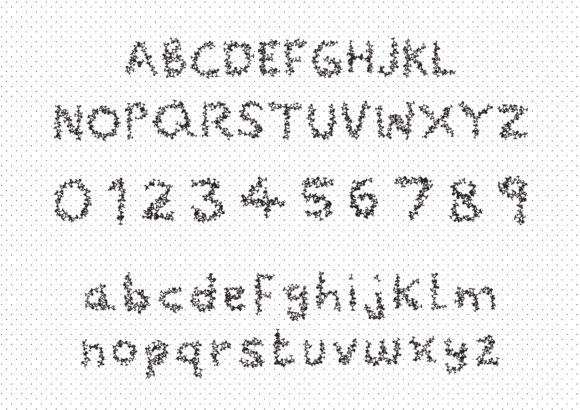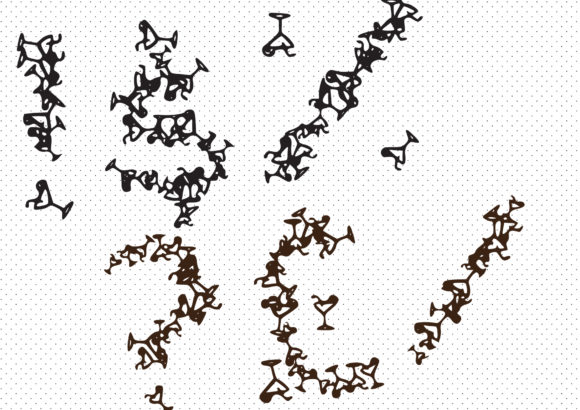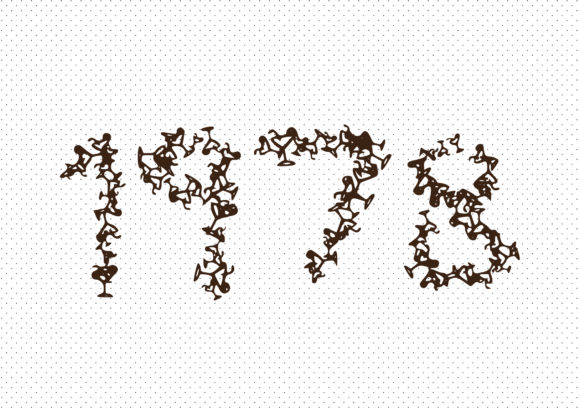
Introduction to Drunk Font
Have you ever stared at a blank canvas, searching for that perfect spark to bring your creative project to life? For designers, it’s a moment we’re all too familiar with. But what if I told you that a simple font can be the game-changer you need? Enter the Drunk Font, a fun display font that’s about to take your designs to the next level.
With its high-quality design and transparent background, the Drunk Font is a valuable resource for any creative project. Its unique feature of featuring small cocktails characters that form each letter adds a playful touch that’s sure to grab attention. And the best part? You can download it for free, making it an accessible design resource for designers of all levels.
Key Features of Drunk Font
- Unique, handwritten font with a distinctive, slanted style, ideal for adding a personal touch to designs.
- Suitable for use in various design projects, including logos, posters, and social media graphics.
Honest Review: Drunk Font
As a designer, I’m always on the lookout for high-quality design resources that can elevate my creative projects. Recently, I stumbled upon the Drunk Font, and I must say, it’s been a game-changer for me.
What works well about the Drunk Font is its unique and playful style. ✨ The font is perfect for adding a touch of whimsy to any design project, from posters to social media graphics. The transparent background makes it easy to use with any background image or color, giving you complete design freedom.
- Unique and playful style
- Perfect for creative projects
- Transparent background for design flexibility
However, I do have to mention a few limitations. ⚠️ The font may not be suitable for formal or professional designs, as it’s quite casual and playful. Additionally, the font may not be compatible with all operating systems or software.
Overall, I’m thoroughly impressed with the Drunk Font, and I highly recommend it to designers looking for a fun and creative design resource.
Tips for Getting the Most Out of Drunk Font
To get the most out of Drunk Font, use it on a transparent background to create a unique and eye-catching design. You can also experiment with different font sizes, colors, and styles to create a cohesive and creative project.
Drunk Font is ideal for use in creative projects such as party invitations, social media graphics, and advertising materials. Its unique and playful design makes it perfect for adding a touch of humor and personality to your designs.
Does Drunk Font have a transparent background, making it suitable for logo design and branding?
Yes, Drunk Font has a transparent background, making it an ideal choice for logo design and branding. The transparent background allows you to easily combine the font with other design elements and maintain a clean, professional look. This feature also makes it easier to use Drunk Font in various design contexts, from digital to print media.